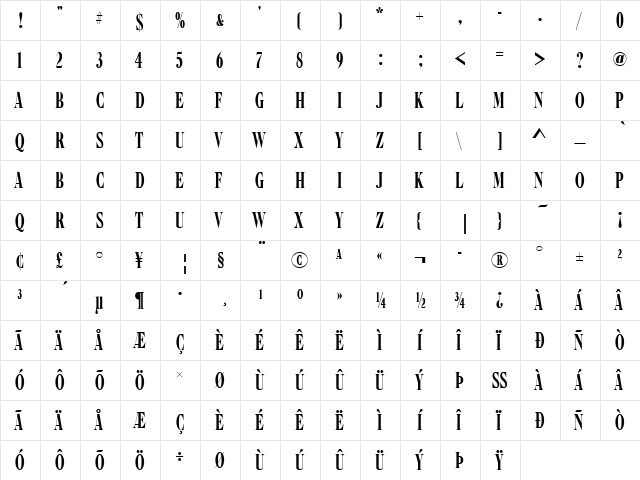
Caslon Becker Graphique Comp Regular
Design Context for Caslon Becker Graphique Comp Typeface
Caslon Becker Graphique Comp is a composed and adaptable typeface that performs quietly and consistently across a wide range of design contexts.